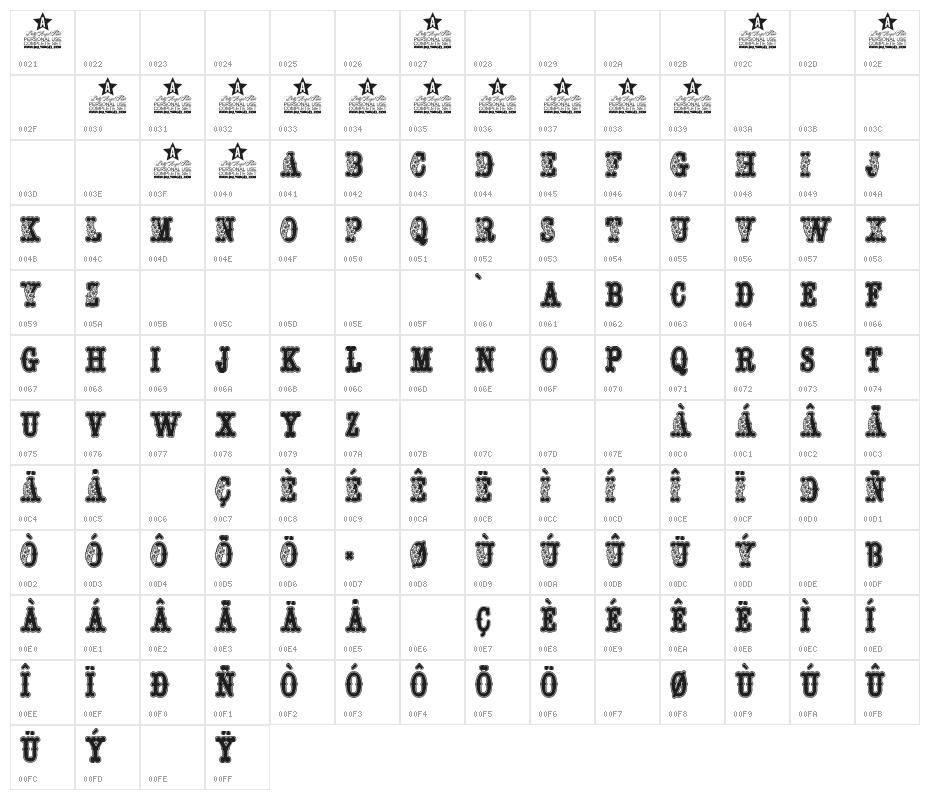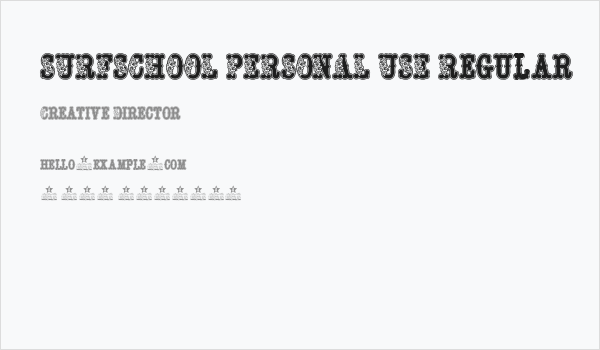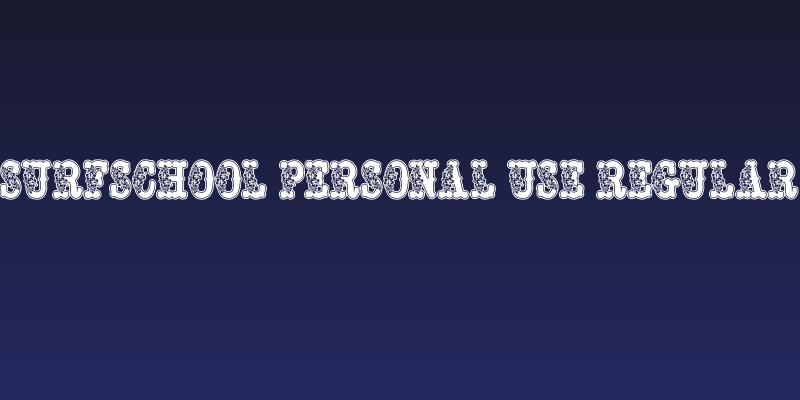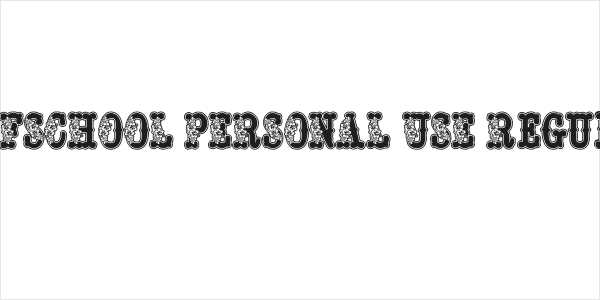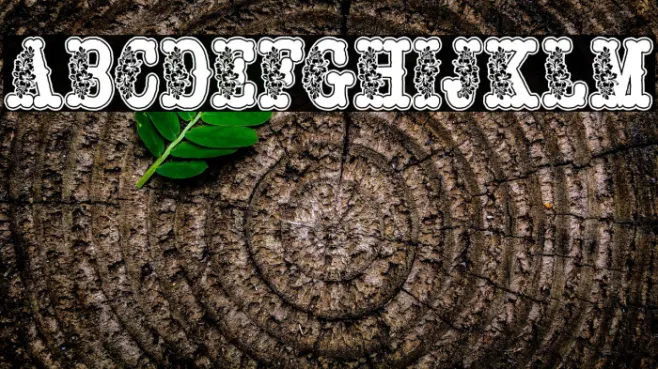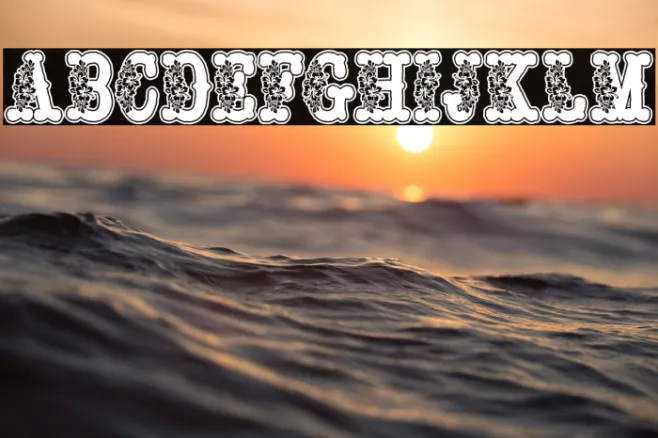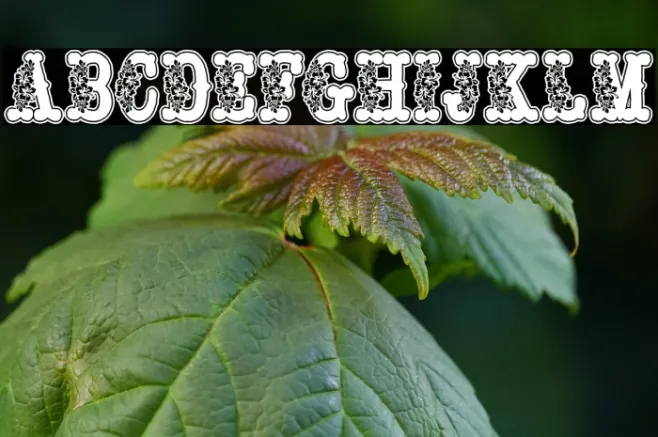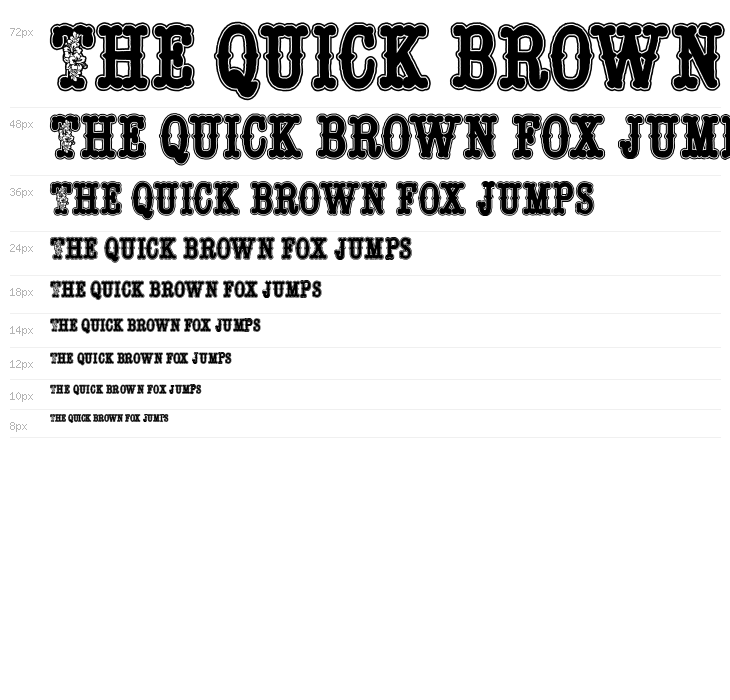
SURFSCHOOL PERSONAL USE Regular Font
SURFSCHOOL PERSONAL USE Regular Description
This font features a bold and decorative style with intricate floral patterns embedded within the letters. The uppercase letters are highly stylized, with thick, bold outlines that enhance their visibility and impact. The floral elements add a whimsical and artistic touch, making it stand out as a unique display typeface. The overall design is reminiscent of vintage poster fonts, combining both elegance and playfulness. The font is suitable for creative projects that require a strong visual presence.
| Overall Style | Vintage, Decorative |
| Proposed Projects | Ideal for posters, event invitations, branding for creative businesses, and any project that benefits from a bold, artistic touch. |